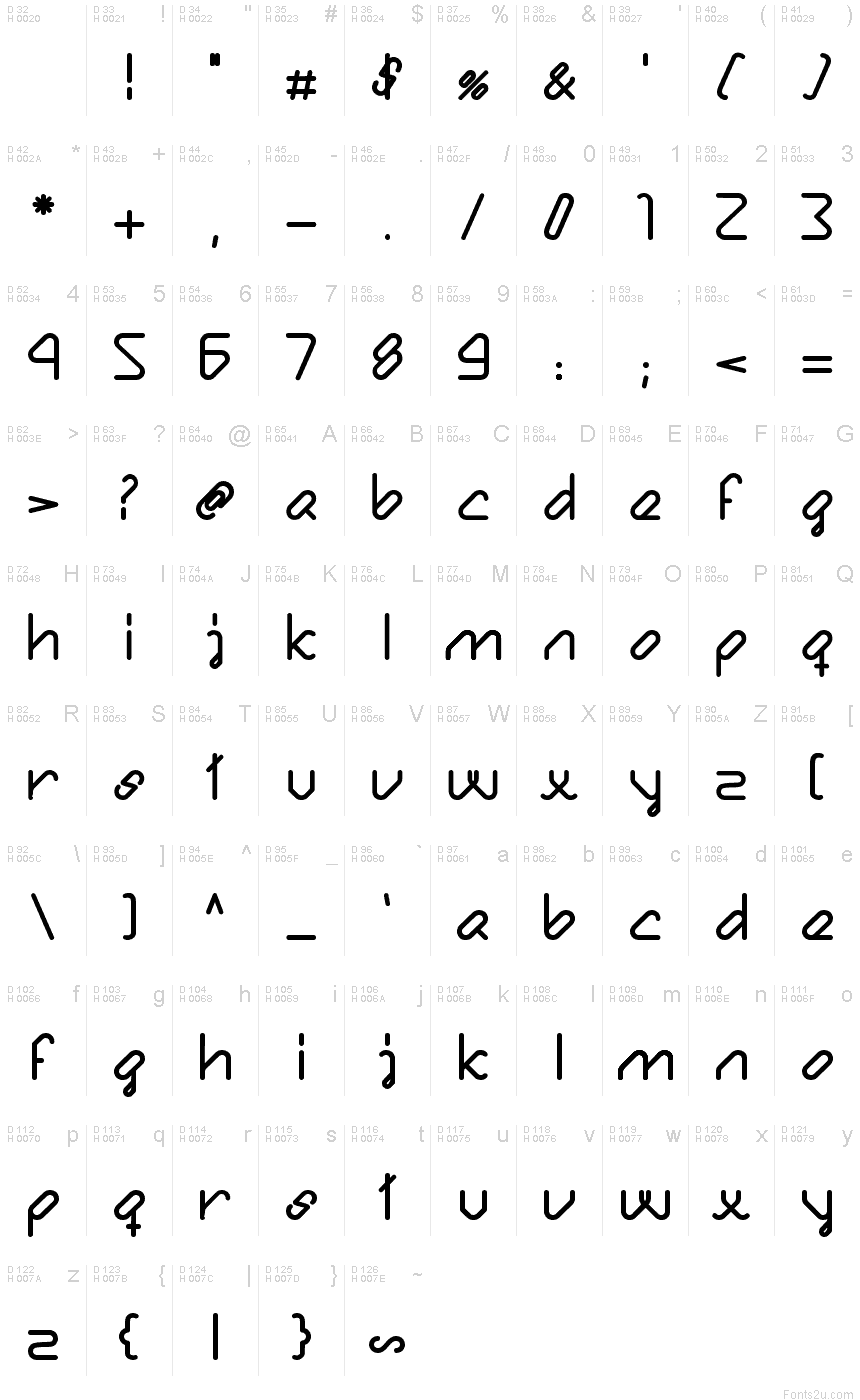
Bule Bold by Cesar Gomez Blanco of Angrois Design is a free monoline script with broad, looping forms. Its rounded strokes keep a nearly even width, and the letters join through low, open curves that give the writing an unusual modular shape. The result is soft but distinctly graphic.
Independent fashion or lifestyle brands could use it for wordmarks, packaging, and merchandise, especially when the lettering needs to feel handmade without looking brushy. Its toy-like curves also suit children's events and playful product lines aimed at younger audiences.